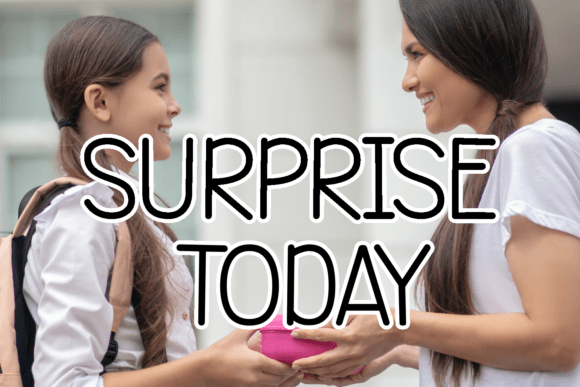
Introduction to Minimal Moment Font
As a designer, have you ever found yourself in a creative moment where the perfect font was the missing piece to bring your project to life? I’m sure you have. It’s that magical moment when the words flow effortlessly, and the visual representation of your idea finally takes shape. For me, that moment often begins with the right font, and today, I’m excited to introduce you to one that I believe will become your go-to design resource: the Minimal Moment Font.
This beautiful, high-quality font is a versatile design tool that will elevate your creative project to new heights. With its clean and elegant lines, it’s perfect for a variety of applications, from social media posts to website designs, and even packaging and branding materials. Whether you’re working on a personal or professional project, the Minimal Moment Font is sure to impress with its sophistication and style.
Key Features of Minimal Moment Font
- High-quality design resource ideal for creative projects, offering a unique aesthetic.
- Designed with a minimalist approach, resulting in a clean and simple look that can enhance any creative project.
Honest Review: Minimal Moment Font
I recently stumbled upon the Minimal Moment Font, a free design resource that’s been making waves in the creative community. As a designer, I was excited to see how it would perform in my next project.
What works well: ✨ The Minimal Moment Font is incredibly versatile, suitable for a wide range of creative projects, from web design to print materials. The high-quality design is crisp and clean, with a beautiful transparent background that makes it easy to layer over other elements.
- High-quality design: The font’s design is top-notch, with a clean and modern aesthetic that’s perfect for minimalistic designs.
However, there are a few limitations: ⚠️ The font’s limited character set may be a concern for designers who need to use it for more complex projects.
Overall, I’m impressed with the Minimal Moment Font. Its high-quality design and versatility make it a valuable addition to any designer’s toolkit. While it may have some limitations, I’d definitely recommend it to anyone looking for a free, high-quality design resource.
The Minimal Moment Font is a high-quality, free design resource perfect for any creative project. Its clean and elegant design makes it ideal for various applications, from logos to text overlays.
For the best results, use Minimal Moment Font on a transparent background or with a simple color scheme to emphasize its elegant design.
Minimal Moment Font is perfect for:
- Logos and branding
- Text overlays for videos and presentations
- Invitations and event materials
Alternatives to Minimal Moment Font
When working on a design project, choosing the right font is crucial for creating a high-quality and visually appealing design. If you’re looking for alternatives to the Minimal Moment Font, here are some options you can consider.
Lato is a popular sans-serif font known for its clean and modern design. It’s perfect for use in digital design, including websites, apps, and other digital platforms. Lato has a transparent background, making it ideal for designs that require a clean and minimalist look. Compared to Minimal Moment Font, Lato is more versatile and can be used in a wide range of creative projects.